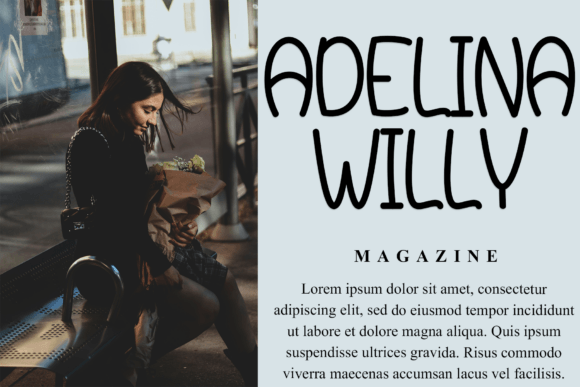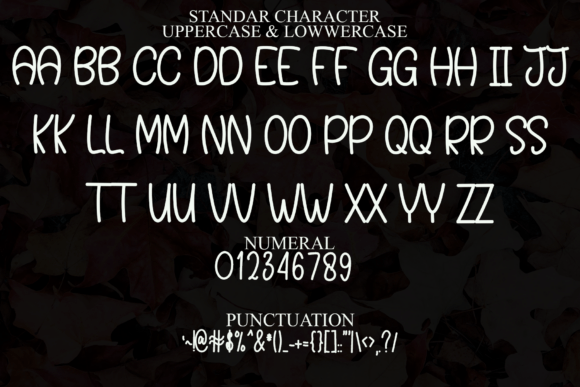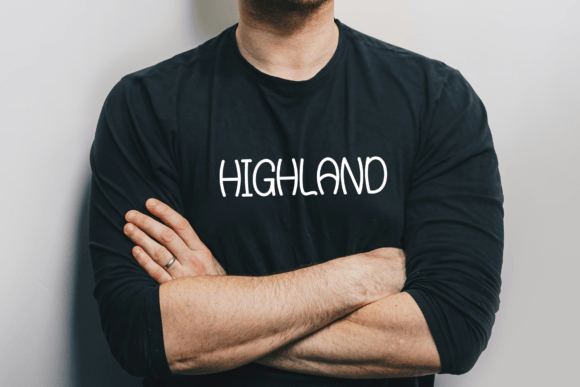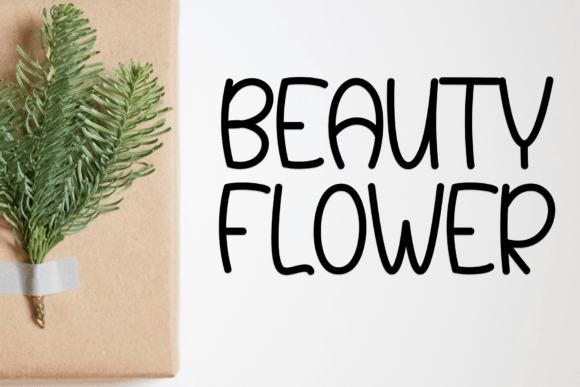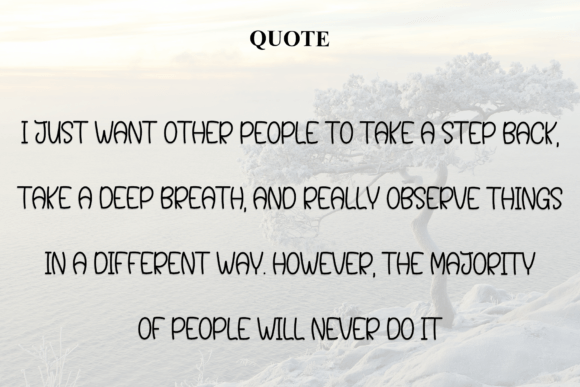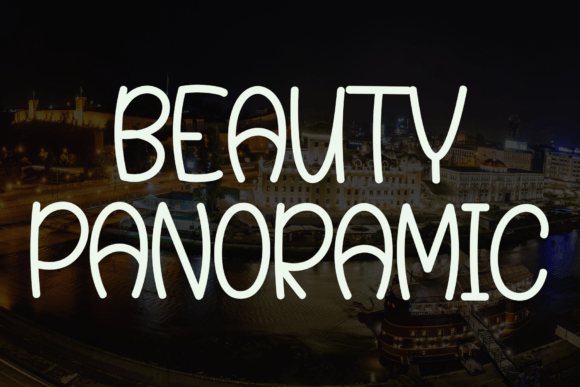
Introduction to Panoramic Font
Panoramic is a stylish font exuding elegance and charm.
Its fluid strokes and natural flow create a captivating, sophisticated look Perfect for adding a personal touch to invitations, branding, or social media, this font brings a sense of warmth and creativity to any design.
Panoramic Font offers exceptional quality and versatility, making it a valuable addition to your design toolkit. Whether you’re creating for personal projects or commercial use, Panoramic Font delivers professional results.